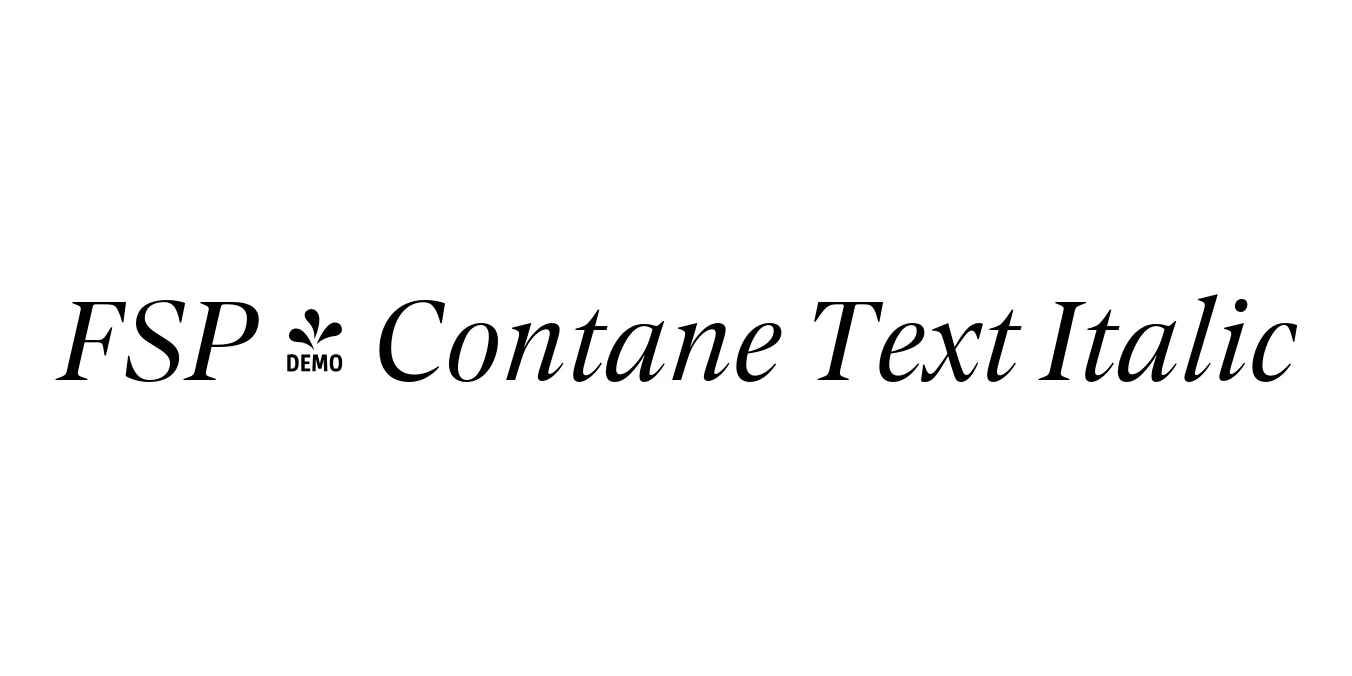
FSP - Contane Text Italic
Designed by Nils Thomsen
Contane Text Italic is a sophisticated serif typeface designed by Nils Thomsen and published through TypeMates. It was meticulously crafted to serve as a versatile workhorse for text-heavy environments, striking a perfect balance between classical elegance and modern functional requirements. The italic variant features a graceful, rhythmic flow that enhances the reading experience without sacrificing the structural integrity necessary for smaller point sizes.
This typeface is part of the larger Contane family, which is known for its moderate contrast and sturdy construction. The Text Italic version specifically optimizes letter spacing and stroke weights to ensure maximum legibility in print and digital media. Its refined calligraphic influences make it a favorite among editorial designers looking for a font that conveys authority and warmth simultaneously.
FSP - Contane Text Italic Best Uses
Highly effective for magazine body text, pull quotes, and long-form journalism.
Ideal for literary works, academic publishing, and footnotes where space is premium.
Used for sophisticated brand identities that require a timeless, professional appearance.
Excellent for digital blogs and news platforms seeking a high-end reading experience.